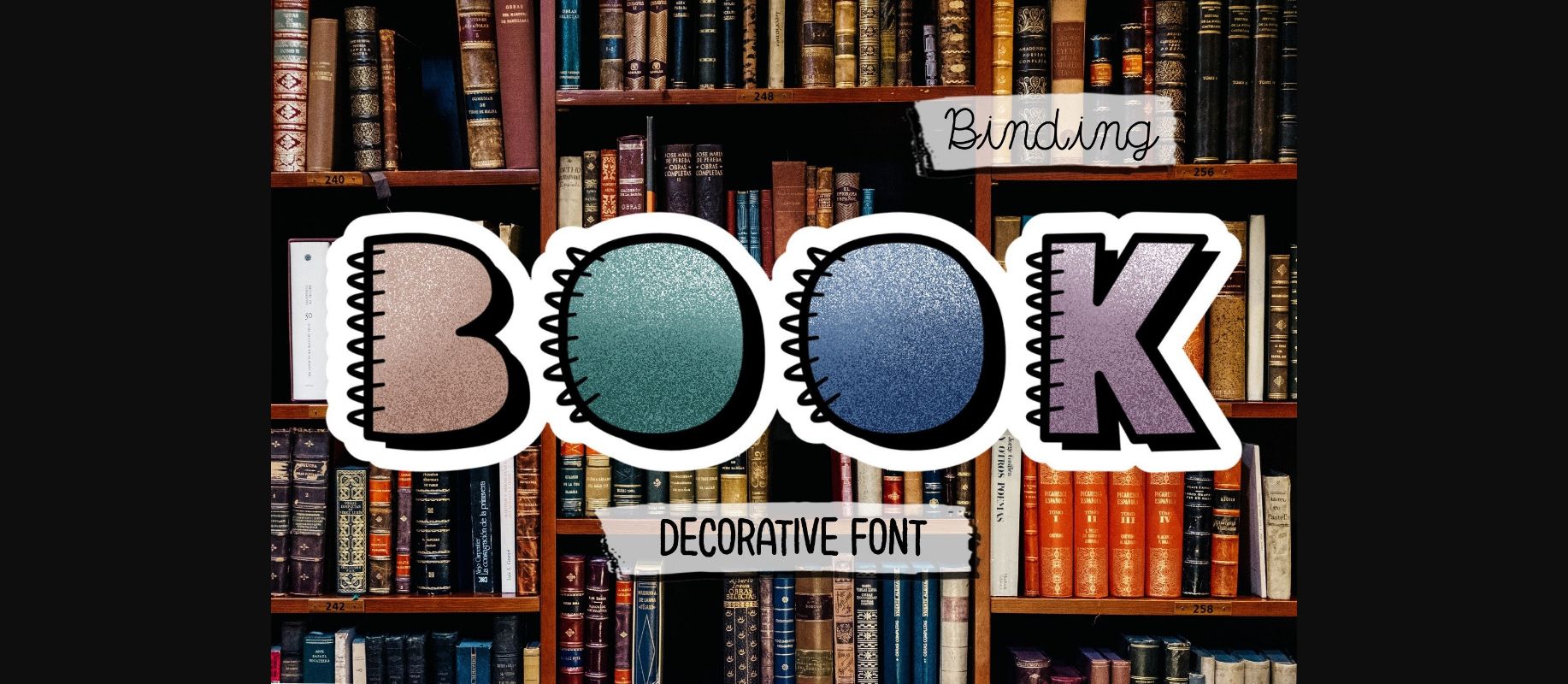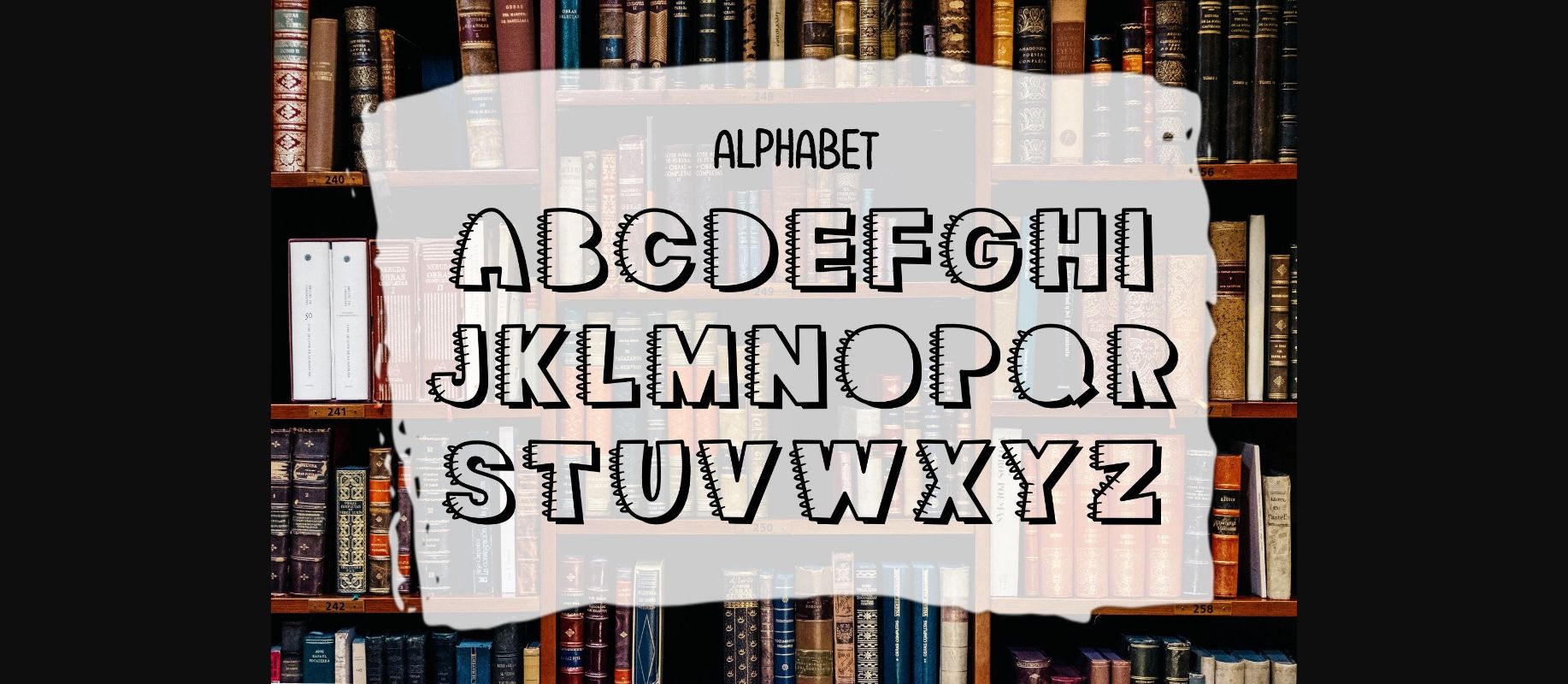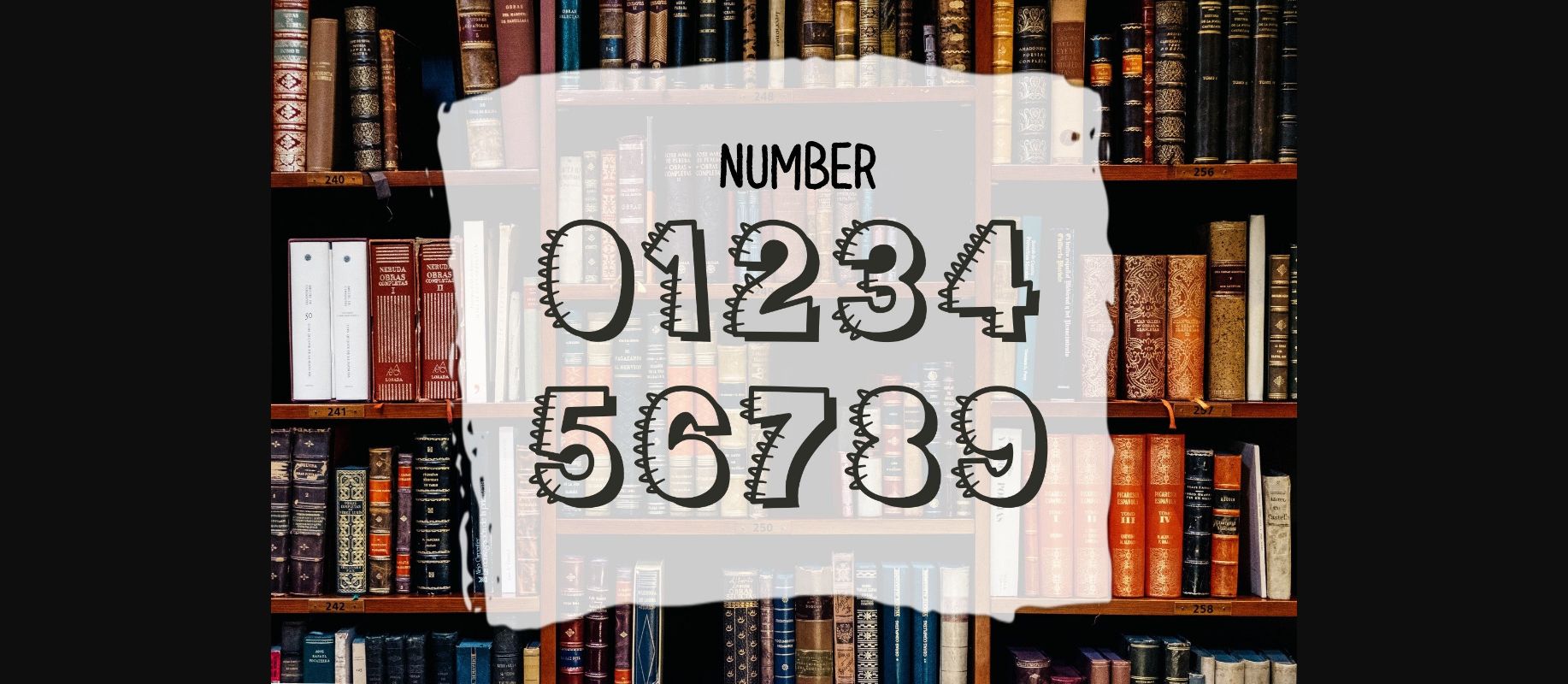
Book Binding is a fun and quirky decorative font. This font is the perfect fit for all of your logos, branding, social media, crafty DIY projects, and much more!